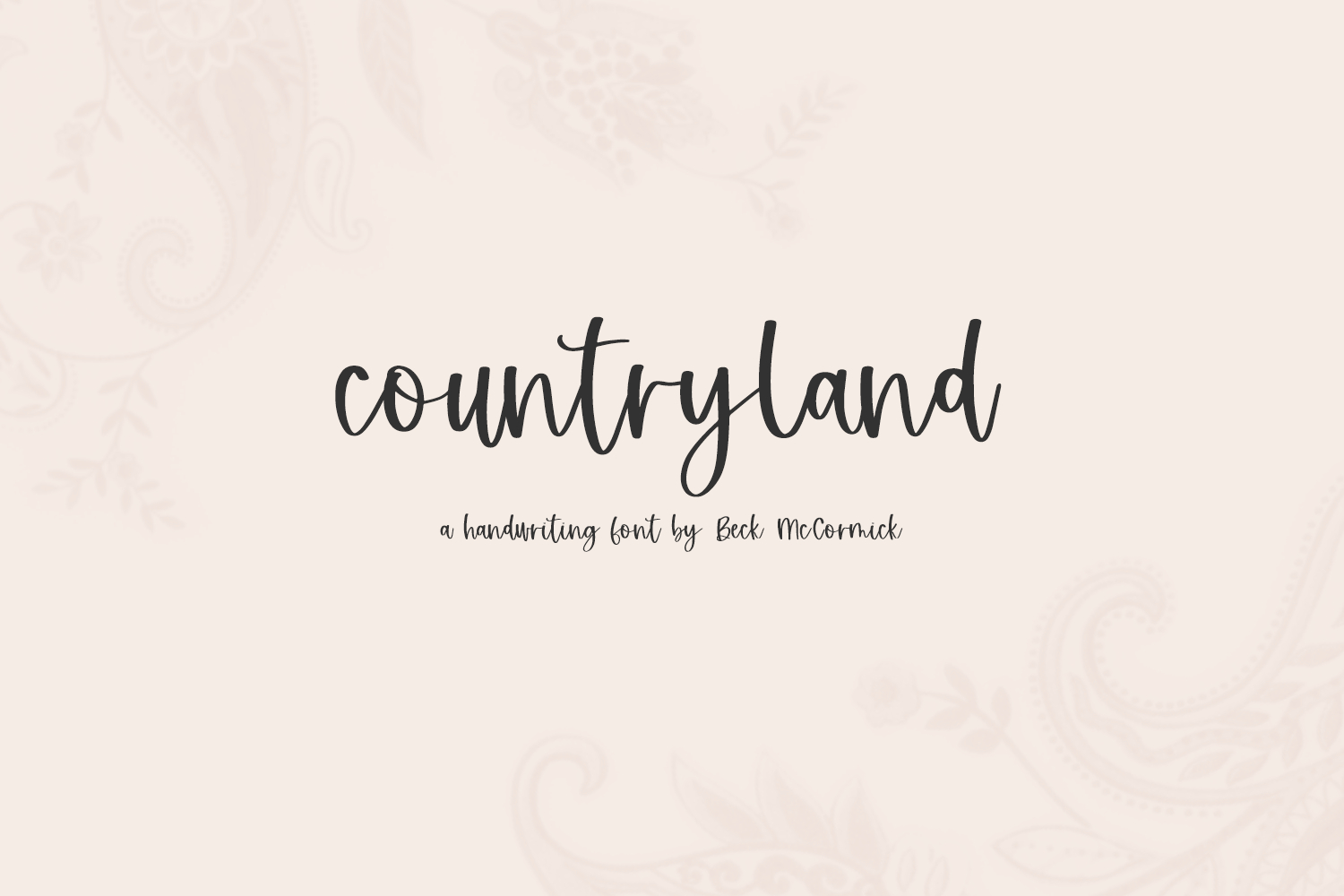
Countryland Script is a hand lettered font. It’ll be a perfect fit for your cute home decor projects, your Cricut machine, logo & branding projects, marketing materials, social media graphics, & more.